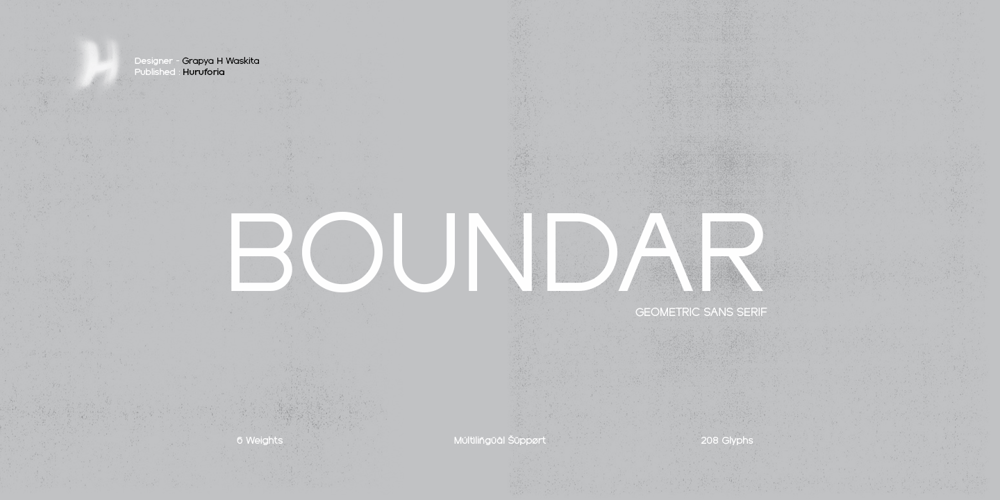
Boundar
Boundar font
Boundar Font Family was designed by Grapya Hardia and published by Huruforia. Boundar contains 5 styles and family package options. Boundar is a sans serif font with a Geometric style, this font consists of 6 Weights and 208 Glyph.Boundar is taken from the Indonesian word “Bundar” which means circle because in this font there are so many circle elements in the manufacturing process.And I (Grapya) as the designer in this font hope, Boundar Typeface can be useful for you.If there is an error or anything that is less pleasing, you can contact us via our email, we will be happy to receive a review from you so that my team and I can be better in the future. and please note that every font that we upload in front of your monitor screen must have been tested by the curator of MyFonts.Thank You,Grapya & Suratoria Team